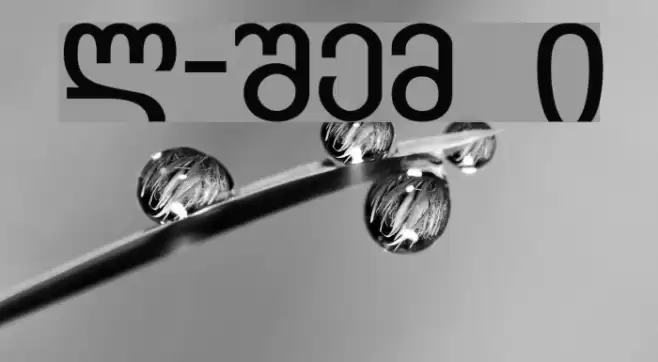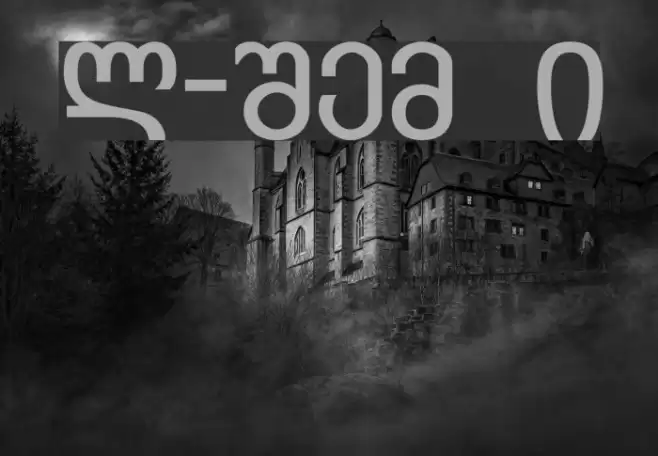
Kolkhety-ITV Bold Font
Kolkhety-ITV Bold Description
This font features a bold and modern design with a unique character set that includes both uppercase and lowercase letters, numerals, and a variety of special characters. The letters are rounded with a consistent stroke width, giving it a clean and contemporary appearance. The overall design is highly legible, making it suitable for various applications. The font's style is distinct, with a slight decorative touch that adds personality without compromising readability. Its bold weight ensures that it stands out, making it ideal for attention-grabbing headlines or titles.
A bold, modern font with rounded characters and a clean, legible design from Uncategorized fonts.